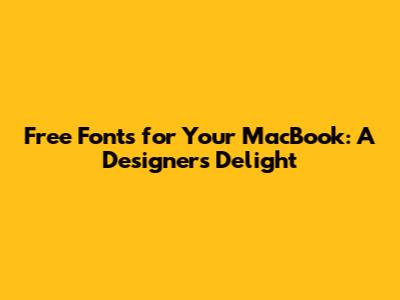
Google Fonts: This is a goldmine of high-quality, open-source fonts. Google Fonts boasts a vast library of fonts that are not only free but also incredibly easy to use. You can browse, filter, and even preview fonts directly on the website before downloading them. Plus, Google Fonts integrates seamlessly with Google Docs and other Google services, making it a convenient choice for many users.
Font Squirrel: Font Squirrel is another fantastic resource for free fonts. What sets Font Squirrel apart is its commitment to offering fonts that are 100% free for commercial use. They also provide a handy Font Identifier tool that helps you identify fonts from images, which can be a lifesaver when you're trying to match a specific font.
DaFont: DaFont is a popular choice among designers and creatives. It features a massive collection of fonts, categorized by style, theme, and even popularity. While many fonts on DaFont are free for personal use, it's essential to check the license agreement before using them for commercial projects. Always err on the side of caution and ensure you're complying with the font's terms of use.
Creative Market (Free Goods): Creative Market is a marketplace for design assets, including fonts. While most items on Creative Market are paid, they offer a selection of free goods that changes regularly. Keep an eye on their freebies section, as you might just stumble upon a premium font that's available for free for a limited time.
MyFonts: MyFonts is a reputable source for premium fonts, but they also offer a selection of free fonts. Their free fonts collection is smaller than some other sites, but it's worth checking out for unique and well-designed options.
Consider the Project: The type of project you're working on should heavily influence your font selection. A formal document might call for a classic serif font like Times New Roman or Garamond, while a website for a tech startup might benefit from a modern sans-serif font like Open Sans or Montserrat.
Think About Readability: Readability is paramount, especially for body text. Choose fonts that are easy to read at various sizes and in different contexts. Avoid overly decorative or stylized fonts for large blocks of text, as they can strain the reader's eyes.
Pay Attention to Kerning and Leading: Kerning refers to the spacing between individual letters, while leading refers to the spacing between lines of text. Adjusting these settings can significantly improve the readability and visual appeal of your text. Most design applications allow you to fine-tune kerning and leading to achieve the desired effect.
Limit the Number of Fonts: Using too many fonts in a single project can create a cluttered and unprofessional look. Stick to a maximum of two or three fonts and use them consistently throughout your design. A good rule of thumb is to choose one font for headings and another for body text.
Test Your Font Choices: Before finalizing your design, test your font choices on different devices and in various environments. What looks great on your computer screen might not translate well to a mobile device or a printed document. Always preview your design in its intended context to ensure readability and visual appeal.